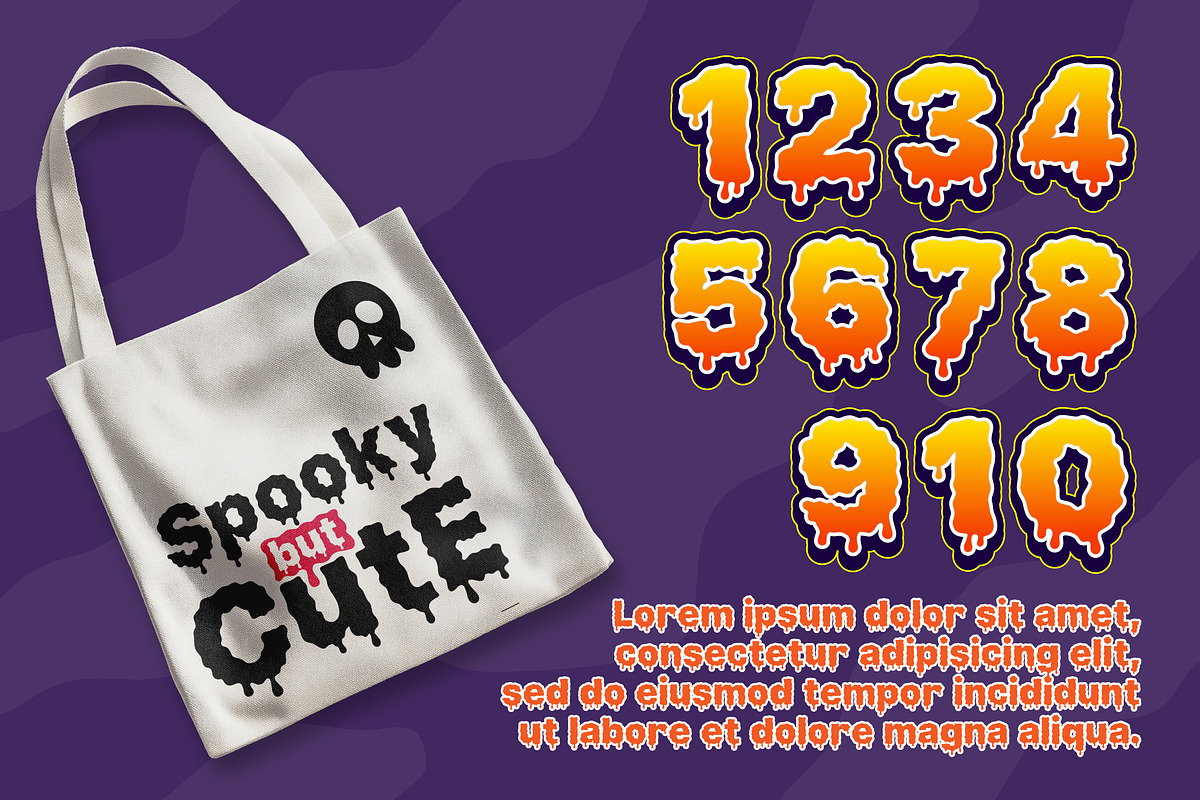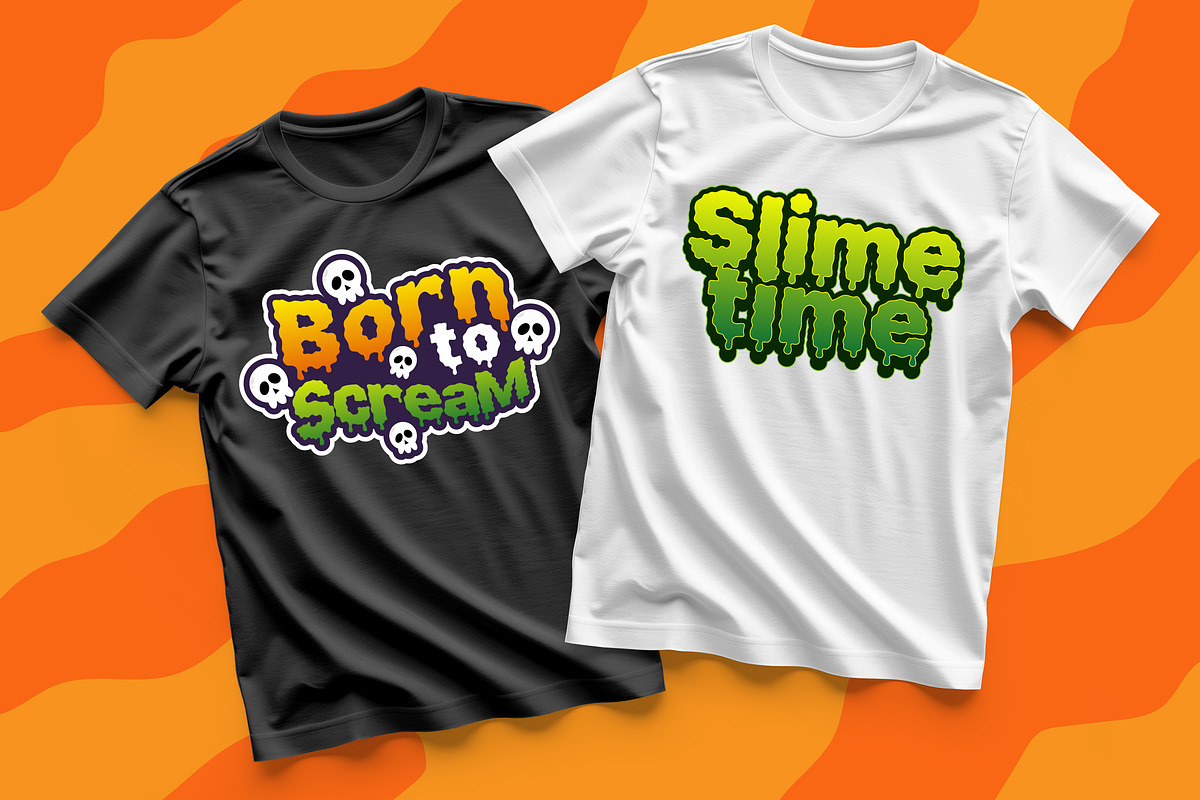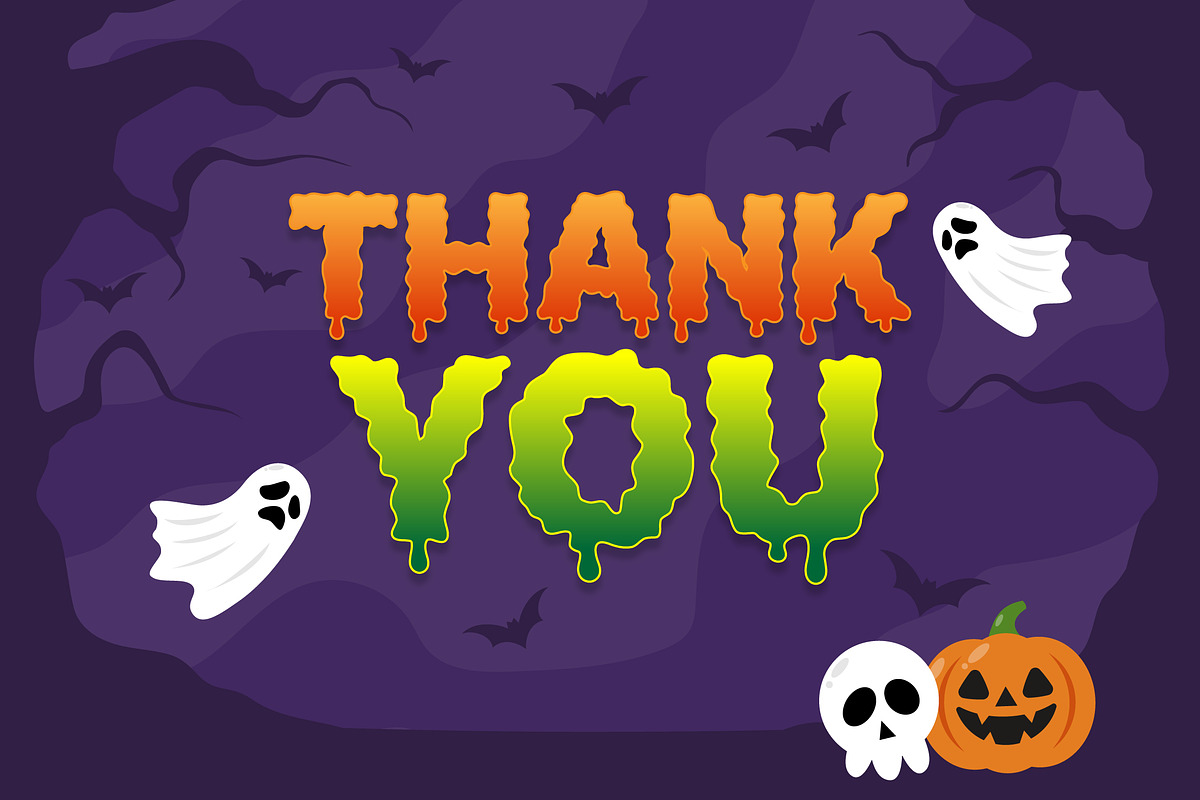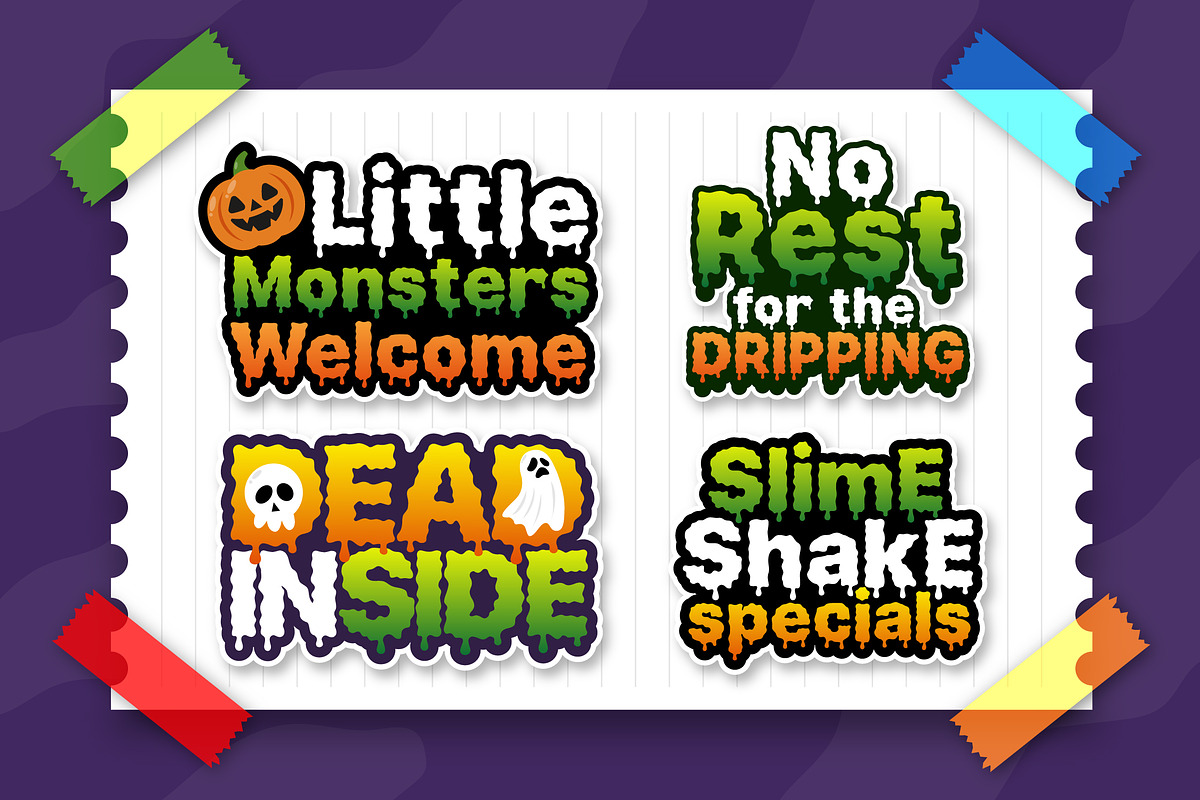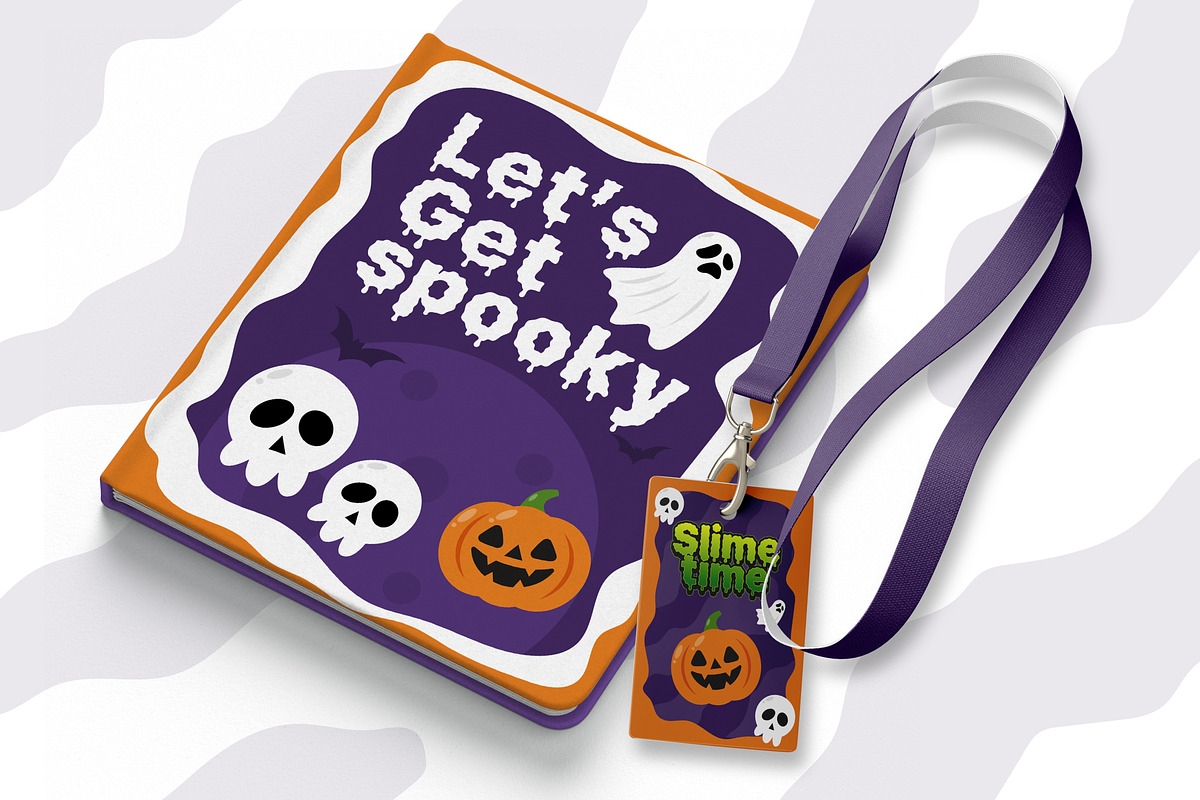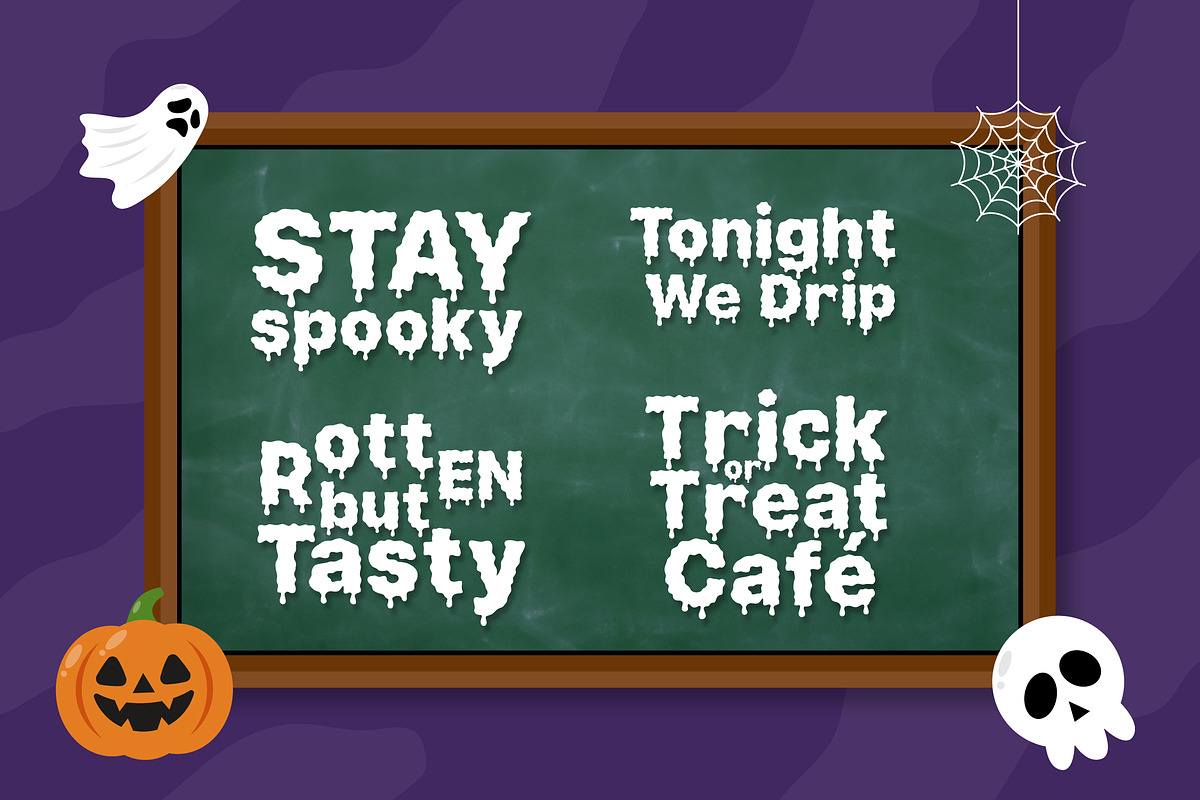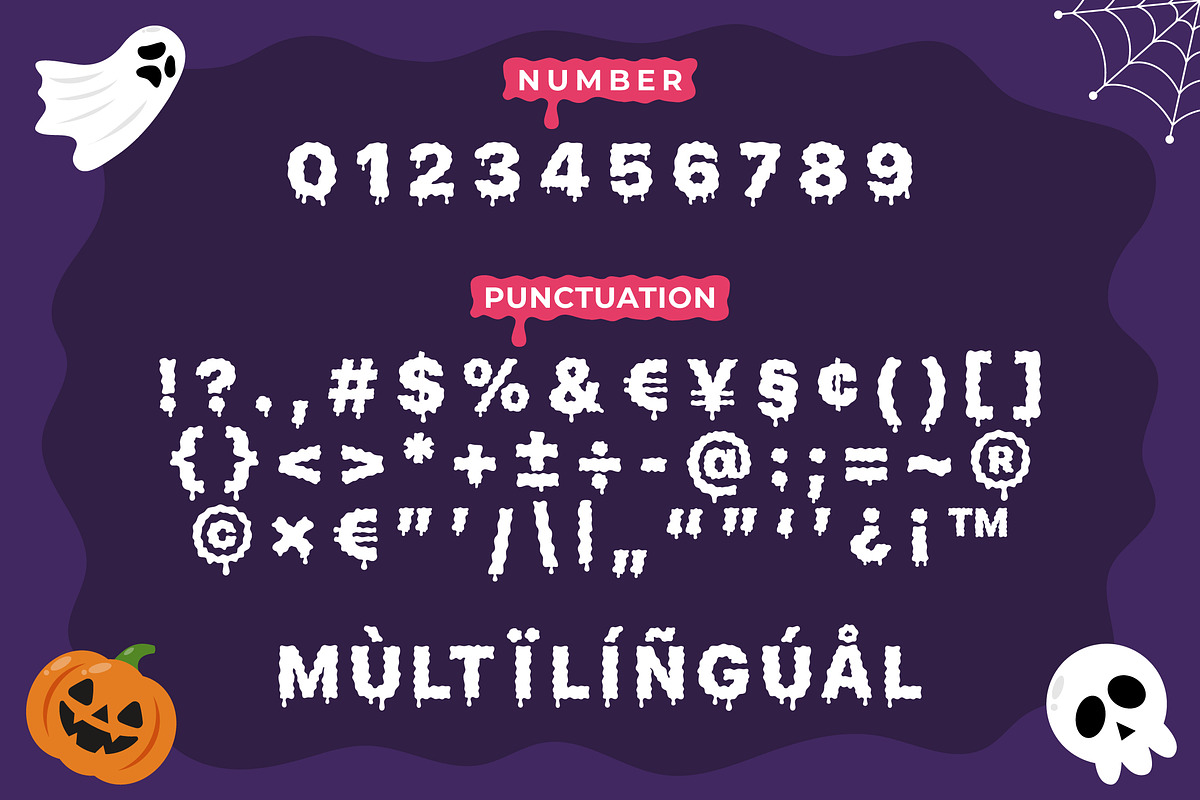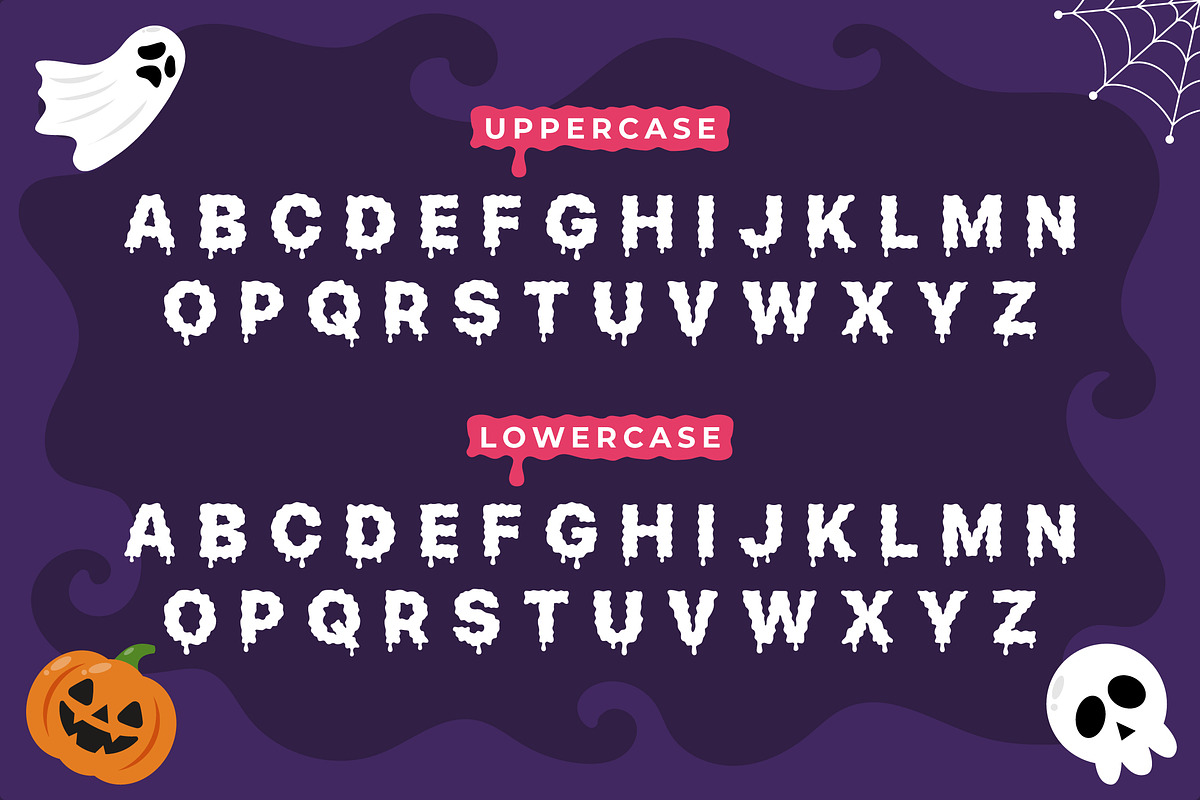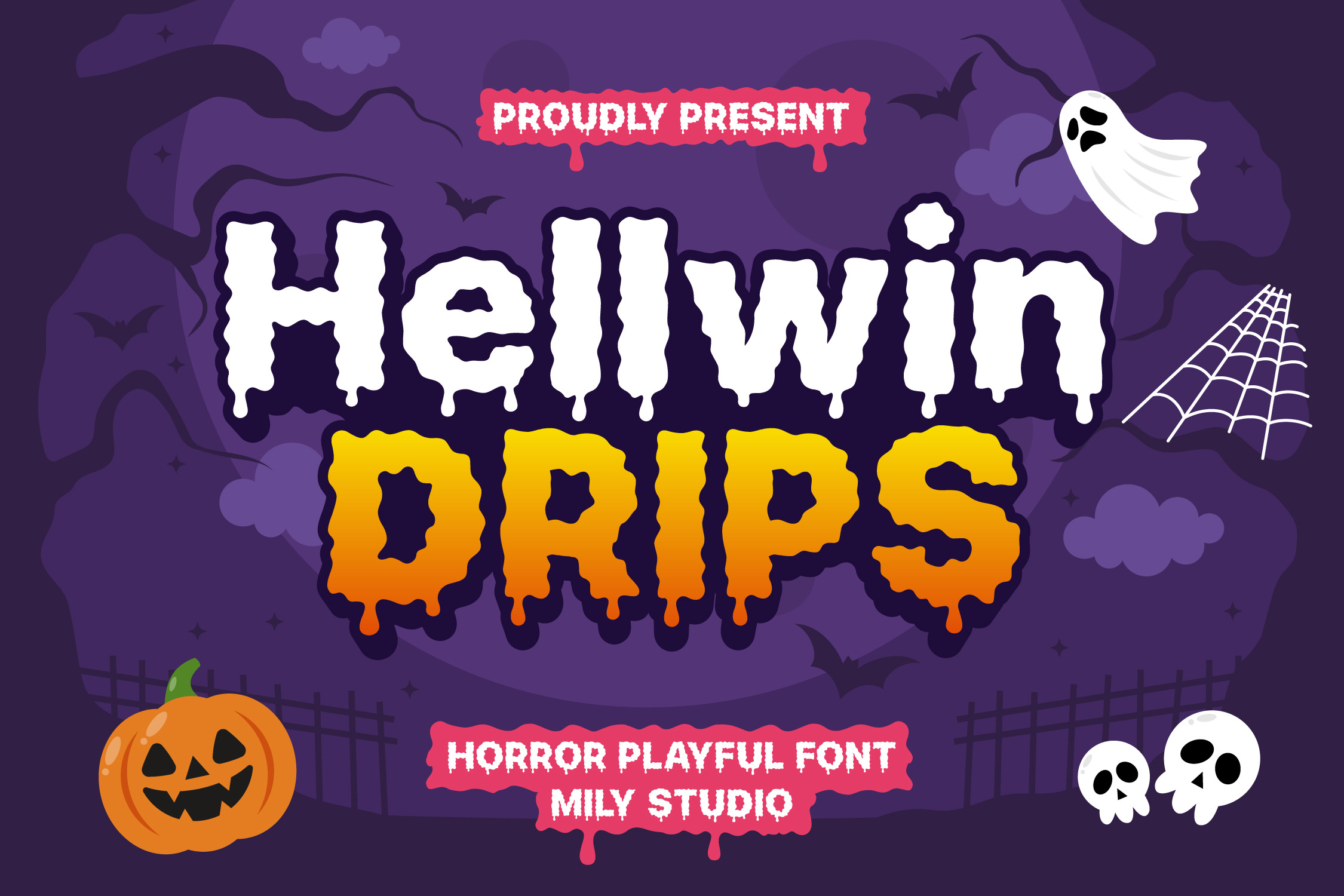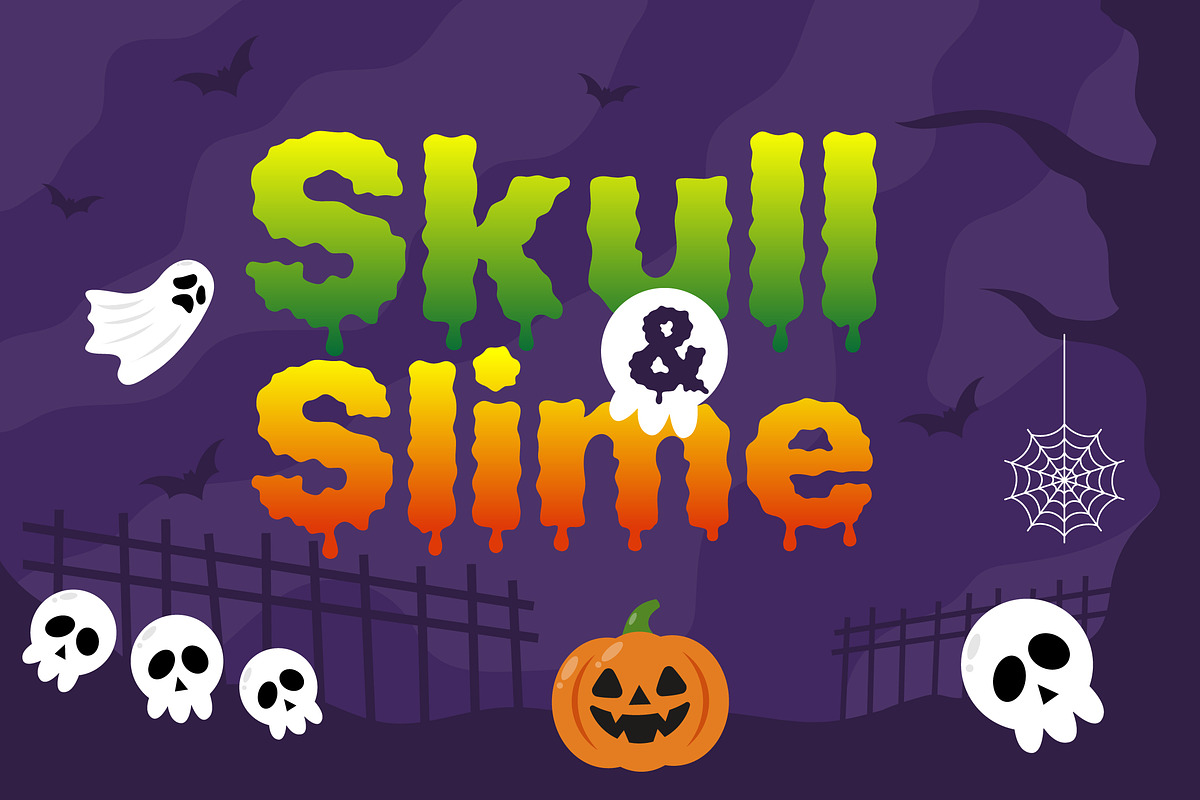
Hellwin Drips - Horror Playful Font
Hellwin Drips is a playful horror font with a twist—literally. Featuring fluid, dripping letterforms inspired by slime, spooky laughter, and Halloween vibes, this font blends creepy and cute in one unique package. Perfect for posters, stickers, packaging, or any eerie-fun design
- Multilanguage